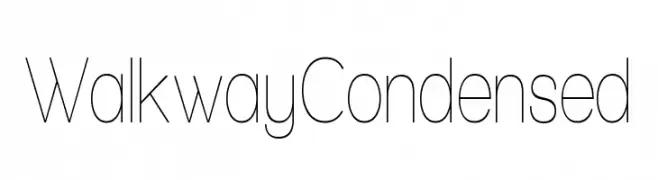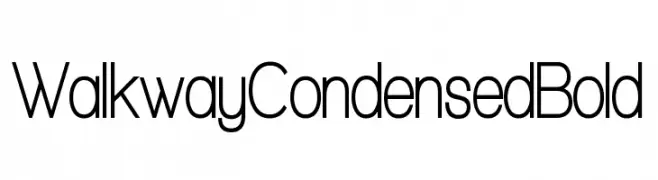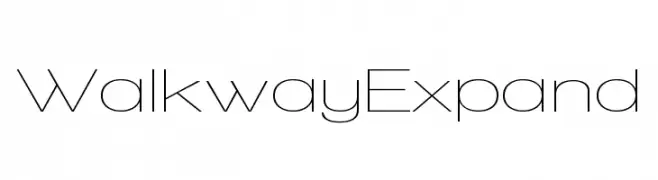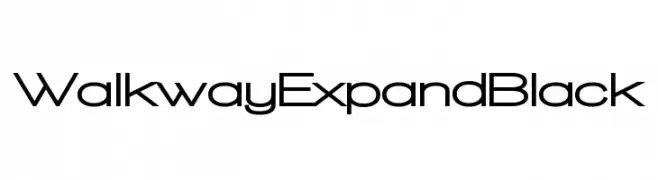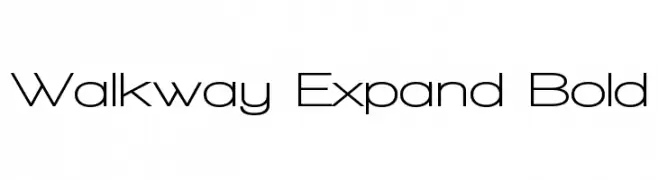
A modern, condensed font with clean lines and a professional appearance.
A bold, condensed sans-serif font with a modern and clean design.
A modern, condensed, and bold font with a clean design.
A modern, condensed sans-serif font with semi-bold weight and clean lines.
A modern, condensed sans-serif font with semi-bold weight and geometric design.
A modern, geometric sans-serif font with expanded width and consistent line weight.
A modern, minimalist sans-serif font with uniform stroke width and clean lines.
A modern, geometric font with wide, clean lines and consistent spacing.
A modern, geometric sans-serif font with expanded, bold characters.
A modern, geometric font with expanded width and uniform stroke width.